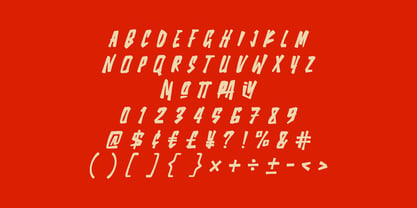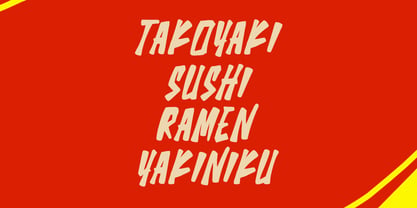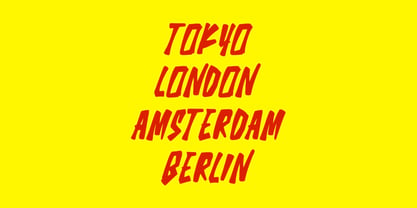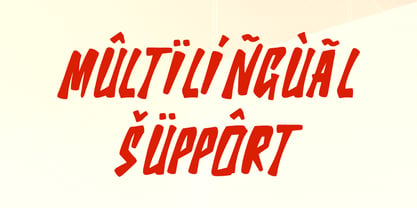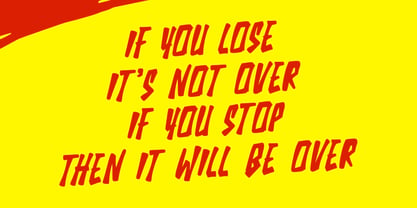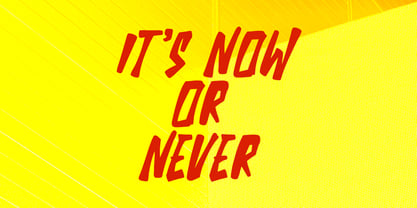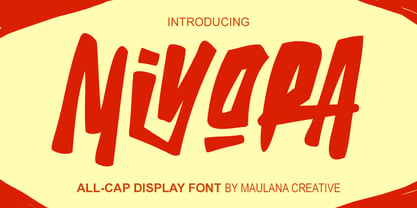
MC Miyora
von Maulana Creative
Die Schriftfamilie MC Miyora wurde von Gilang Maulana entworfen und von Maulana Creative veröffentlicht. MC Miyora enthält 1 Stile. Mehr über diese Familie
Miyora is a handmade display font. With bold stroke, fun character with a bit of ligature and alternates. To give you an extra creative work. Miyora font support multilingual more than 100+ language. This font is good for logo design, Social media, Movie Titles, Books Titles, a short text even a long text letter and good for your secondary text font with sans or serif. Make a stunning work with Miyora font.
Designer: Gilang Maulana
Foundry: Maulana Creative